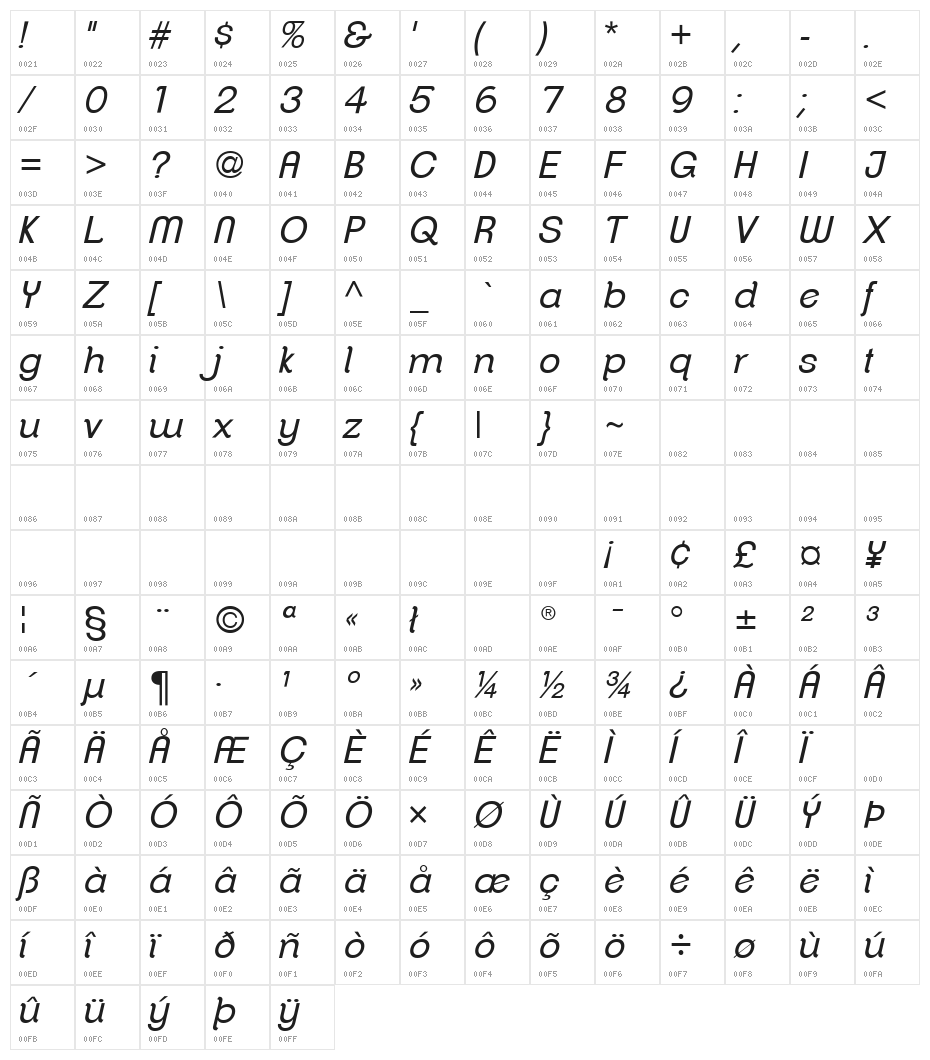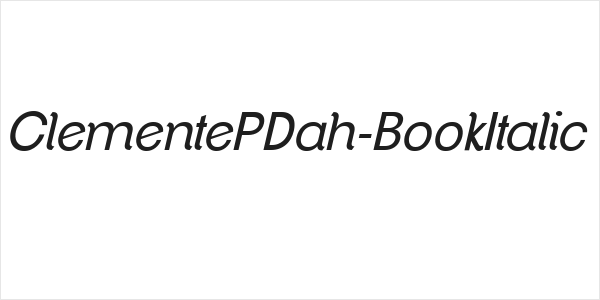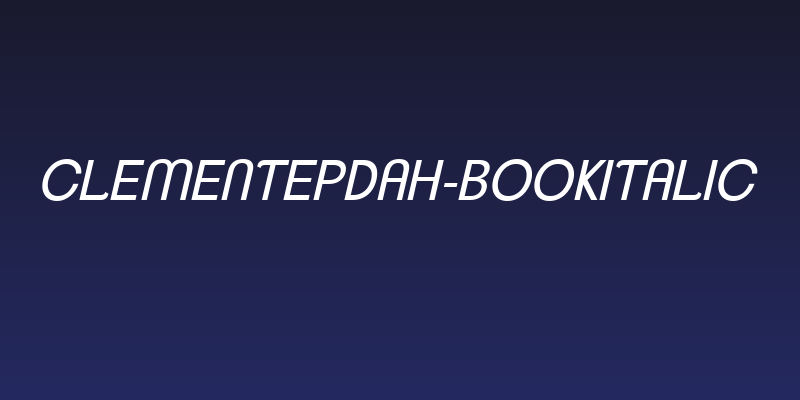
ClementePDah-BookItalic Font
ClementePDah-BookItalic Description
This font features a smooth and flowing italic style, characterized by its elegant curves and slightly condensed letterforms. The uppercase letters maintain a consistent height, while the lowercase letters exhibit a gentle slant, enhancing readability and adding a touch of sophistication. The numerals are well-proportioned, complementing the alphabet with their rounded edges. Special characters are designed with the same fluidity, ensuring a cohesive appearance across all glyphs. The overall design exudes a modern yet timeless appeal, making it versatile for various applications.